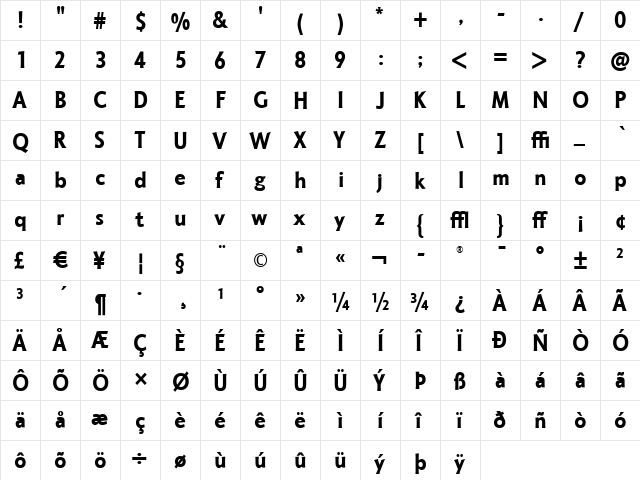
Octone ITC Bold
| Foundry | International Typeface Corporation |
Design Context for Octone ITC Typeface
Octone ITC takes a measured approach to typography — its balanced proportions and neutral character make it a reliable workhorse for both digital and print work. Its bold stroke weight gives it real presence on the page.